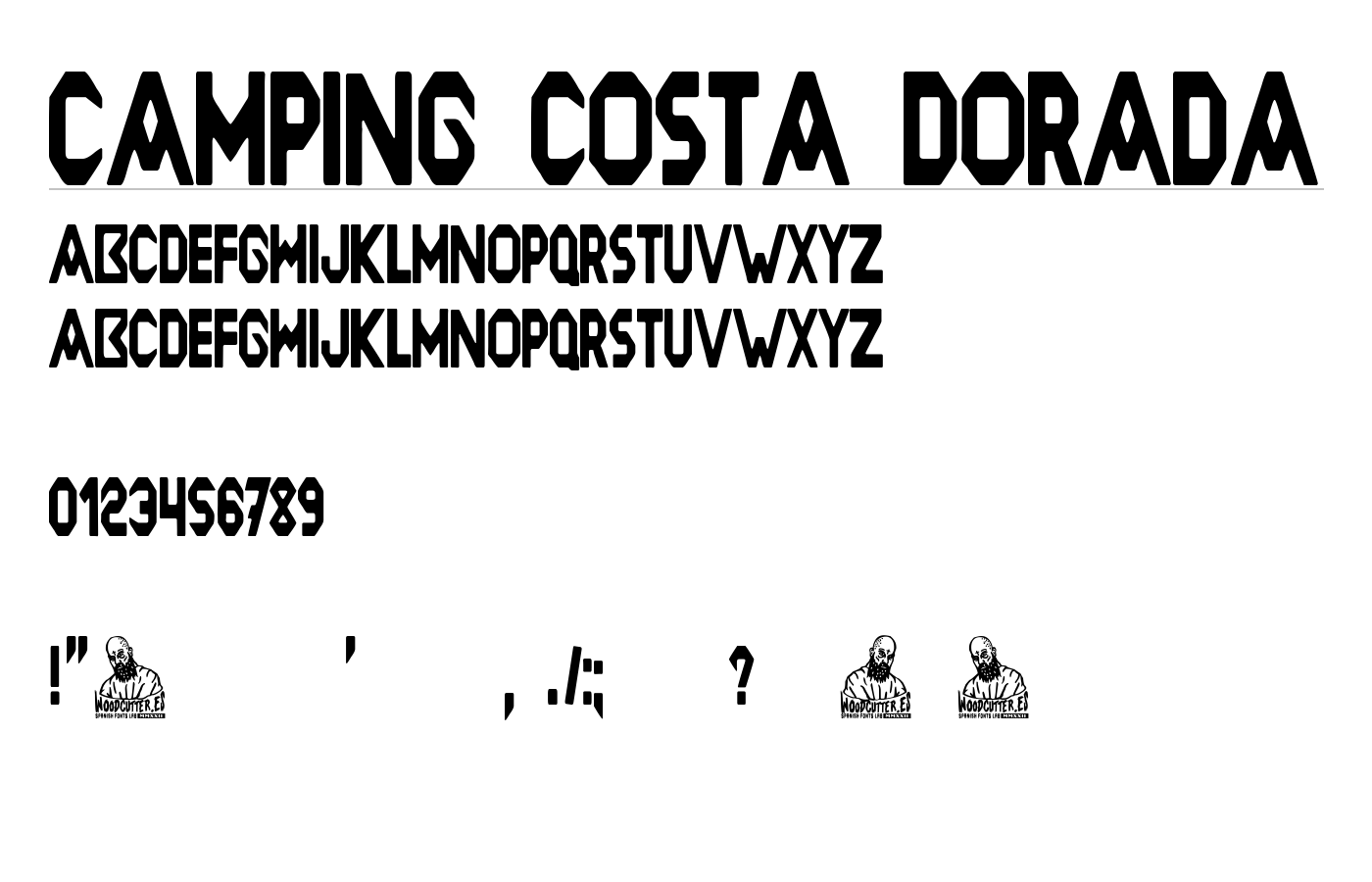
Camping Costa Dorada is a bold, geometric sans serif font with unique angular letterforms that give it a strong, adventurous personality. Its condensed width and high x-height make it highly legible in display sizes, perfect for outdoor, travel, or retro-inspired branding. This font works especially well for logos, posters, and headlines where a distinct, rugged style is desired.
Camping Costa Dorada Font
About Camping Costa Dorada Font